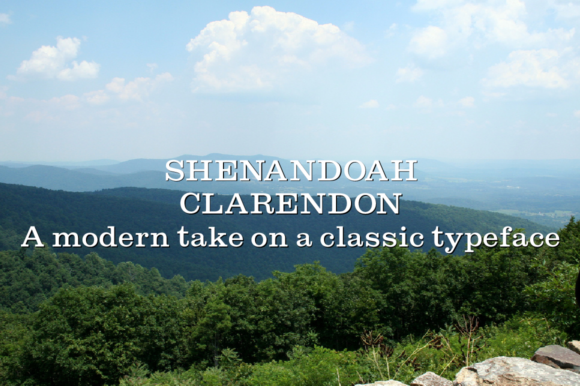
Behold the Shenandoah Clarendon Family Font, a magnificent slab serif typeface, meticulously crafted by Megami Studios to bring a touch of elegance and sophistication to your designs. This font family exudes a timeless charm, perfectly blending classic aesthetics with contemporary flair.
With its refined curves and sharp serifs, Shenandoah Clarendon Family Font possesses a distinct character that commands attention. Each letterform is meticulously designed to convey both tradition and modernity, ensuring your designs stand out from the ordinary.
Immerse yourself in a world of creative possibilities with the Shenandoah Clarendon Family Font. Its versatility knows no bounds, making it suitable for a wide range of projects, from elegant wedding invitations and timeless logos to eye-catching posters and captivating branding materials.
Let the Shenandoah Clarendon Family Font transport you to a realm of artistic expression. Its classic feel, infused with modern touches, adds a touch of sophistication and distinction to any design. Elevate your projects to new heights with this font family's timeless appeal.